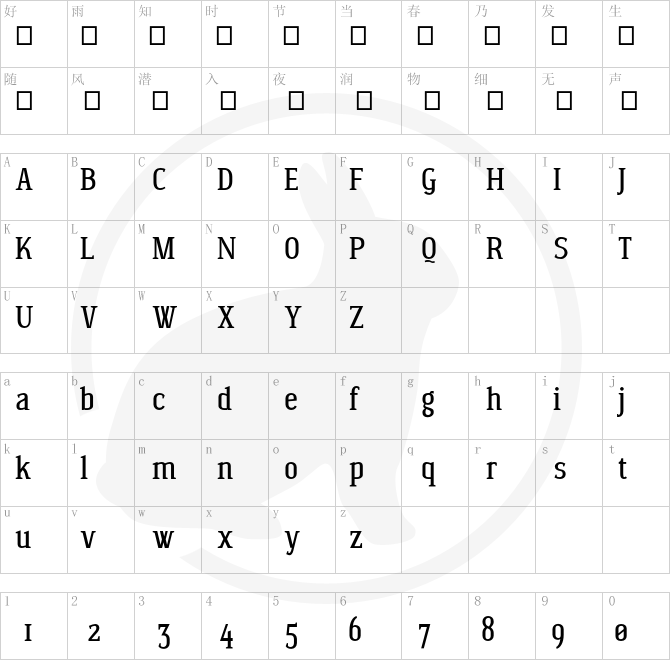
- Font Name:Wagashi Serif
Wagashi-Serif.otf is a very beautiful artistic font, Wagashi-Serif.otf is widely used in the design and printing of various books and pictures,Wagashi-Serif.otf has a strong visual impact,Wagashi-Serif.otf is a commonly used font in newspapers, magazines and books, and is used in posters, e-commerce Poster design, store design, logo design, font design and other fields.Wagashi-Serif.